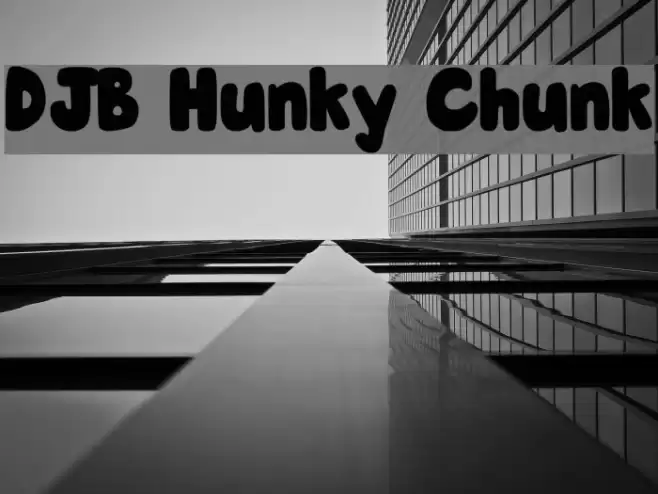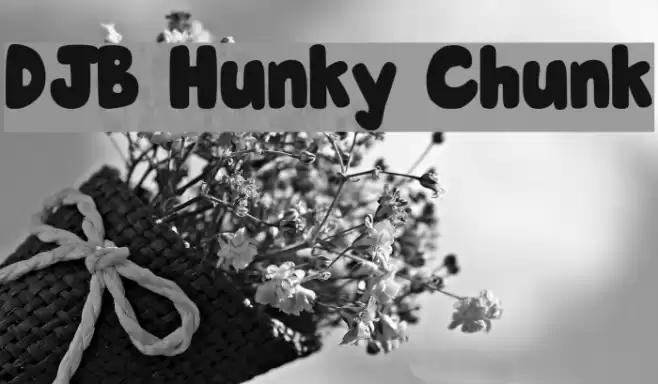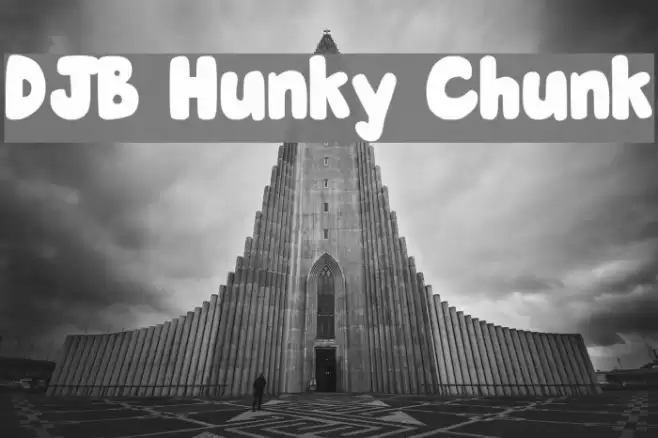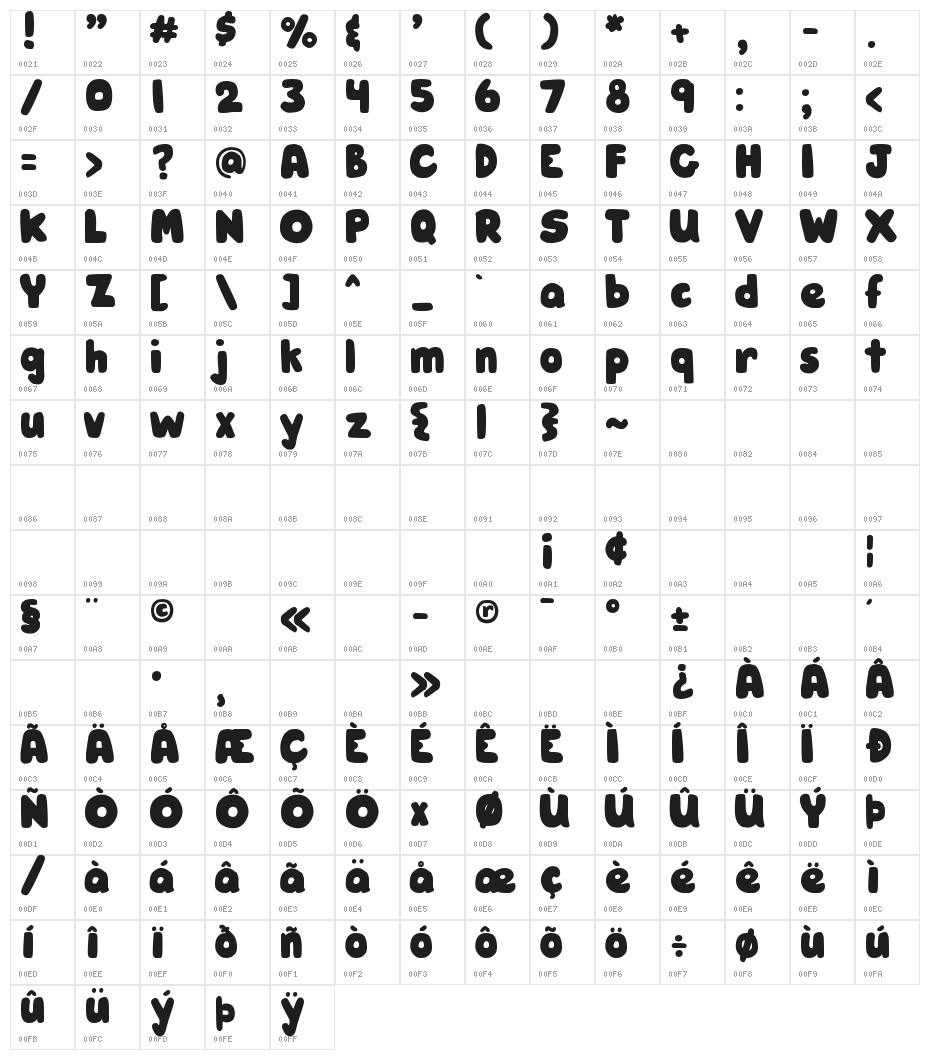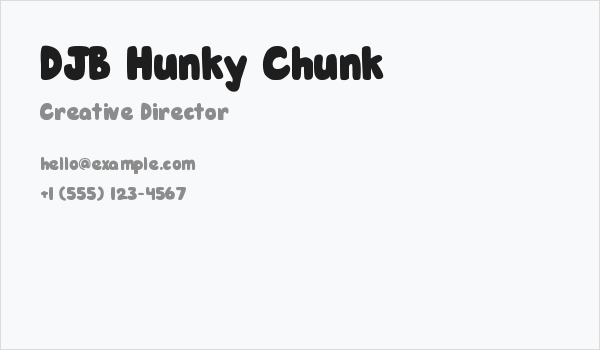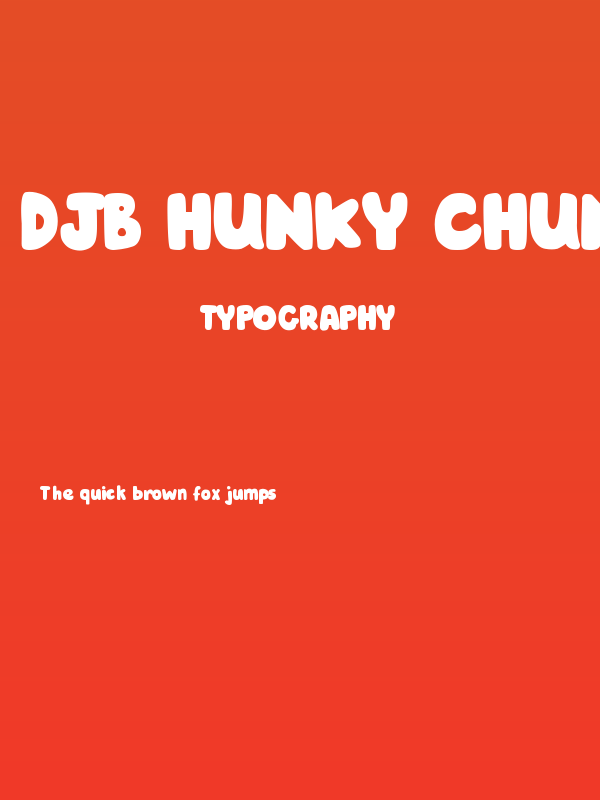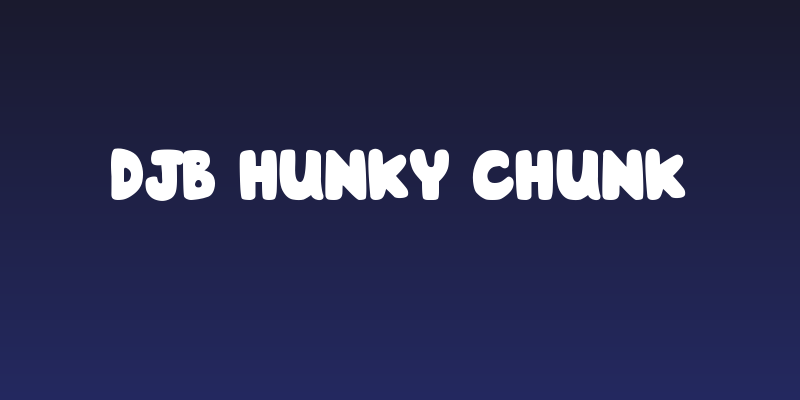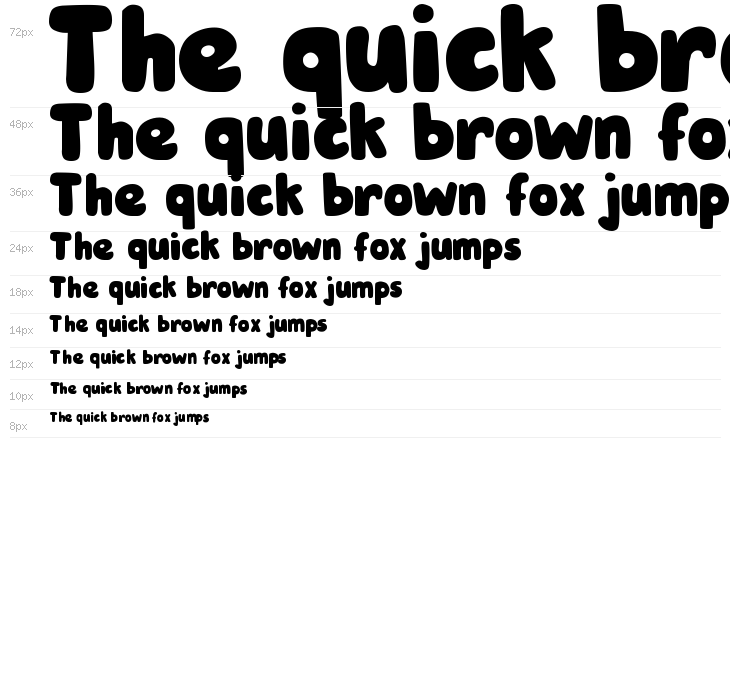
DJB Hunky Chunk Font
DJB Hunky Chunk Description
This font features a bold and playful design with thick, rounded letters that convey a sense of fun and approachability. The characters are uniformly bold, with a consistent stroke width that gives the font a chunky appearance. The rounded edges and lack of sharp angles contribute to its friendly and informal style. It is highly legible and stands out due to its substantial weight and presence. The font includes a full set of uppercase and lowercase letters, numbers, and a variety of special characters, making it versatile for various uses.
A bold, playful font with thick, rounded letters and a friendly style from Uncategorized fonts.
- Proposed Projects: Ideal for children's books, playful branding, posters, and any project requiring a fun and approachable aesthetic.
- Overall Style: Playful, Fun